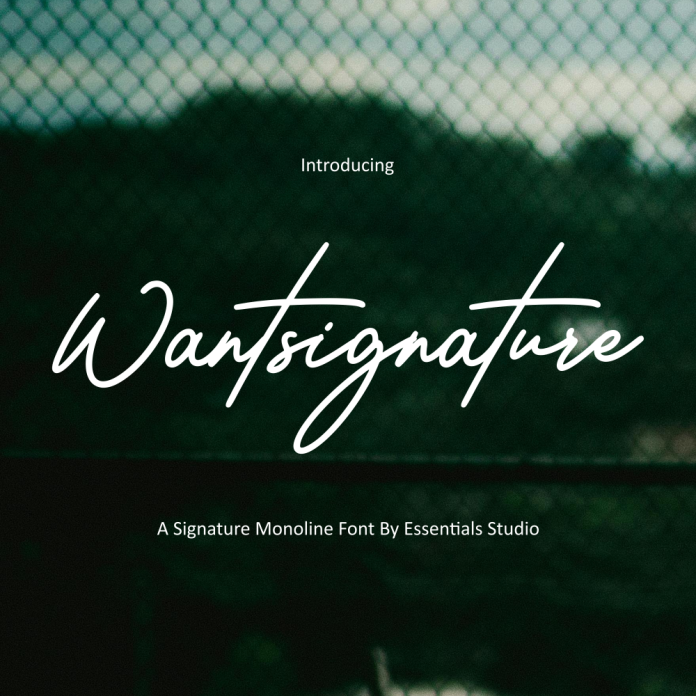
Wantsignature is a sleek and elegant single line font, perfect for adding a touch of sophistication to any project. Its flowing script style exudes luxury and exclusivity, making it ideal for branding, invitations, and other high-end designs. This premium font is sure to make a statement with its unique and eye-catching appearance.